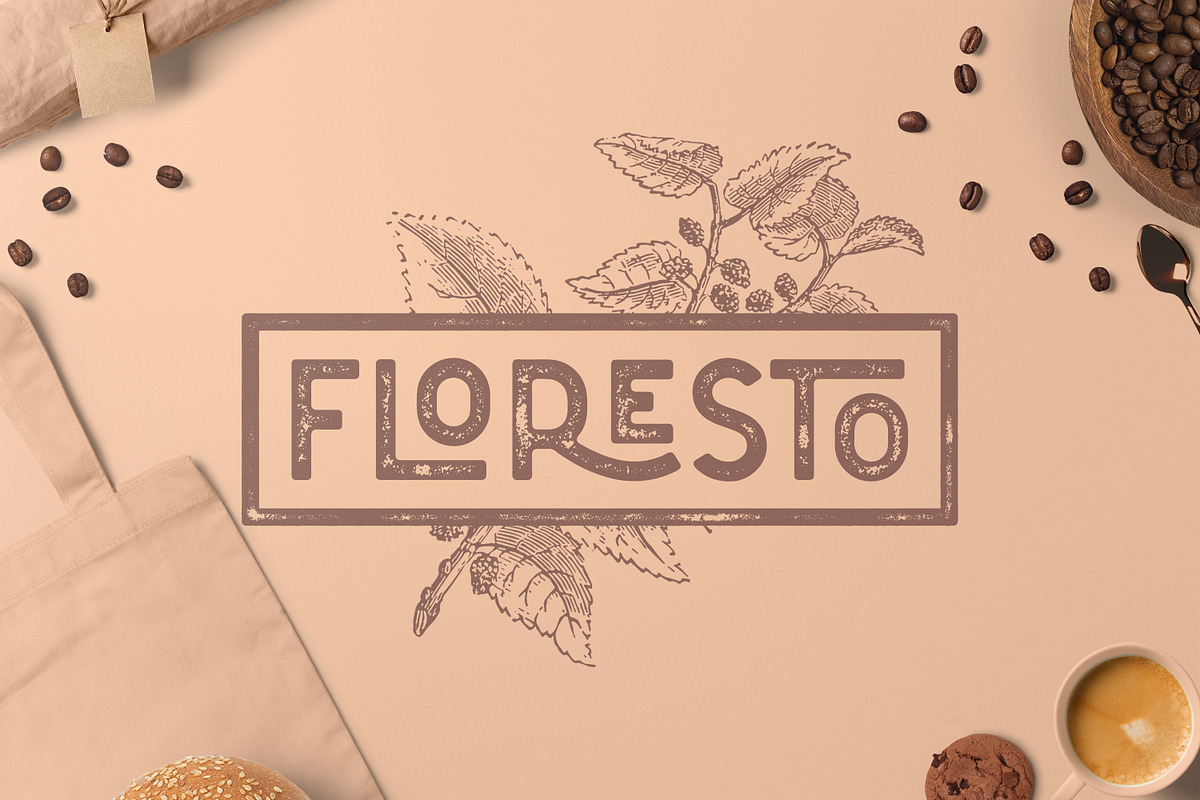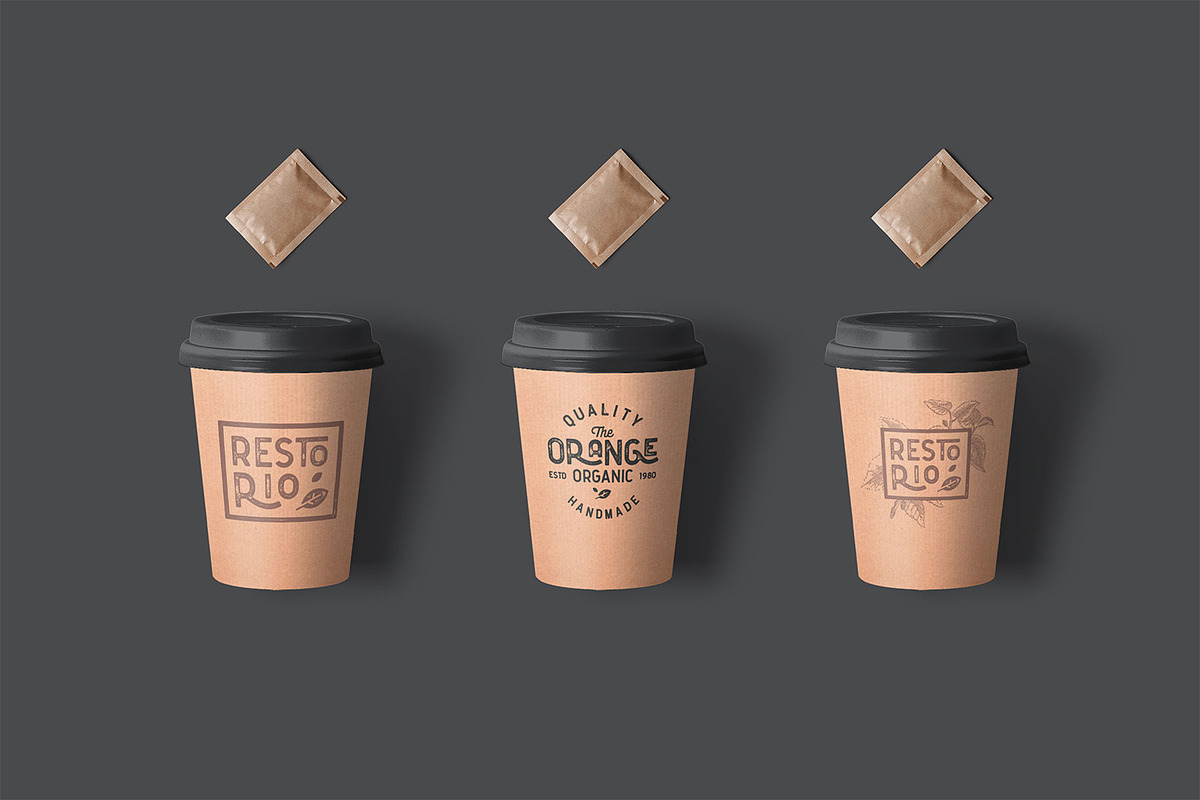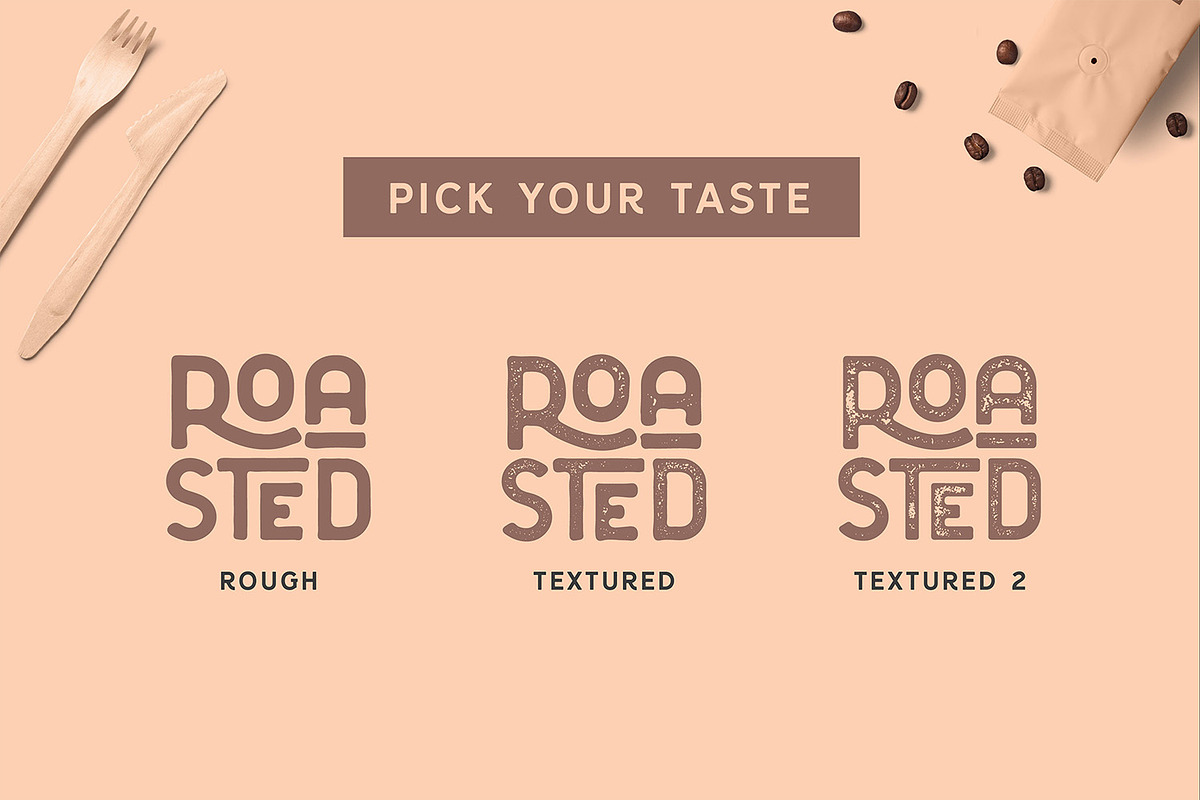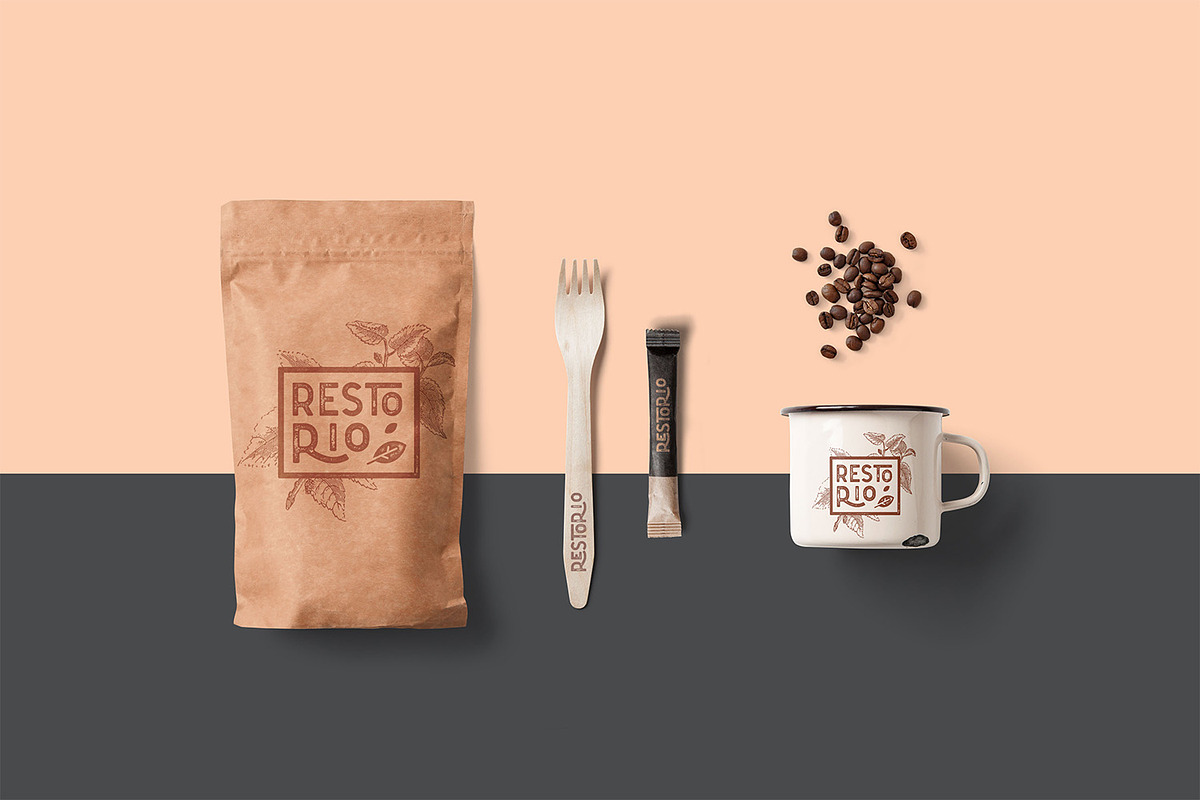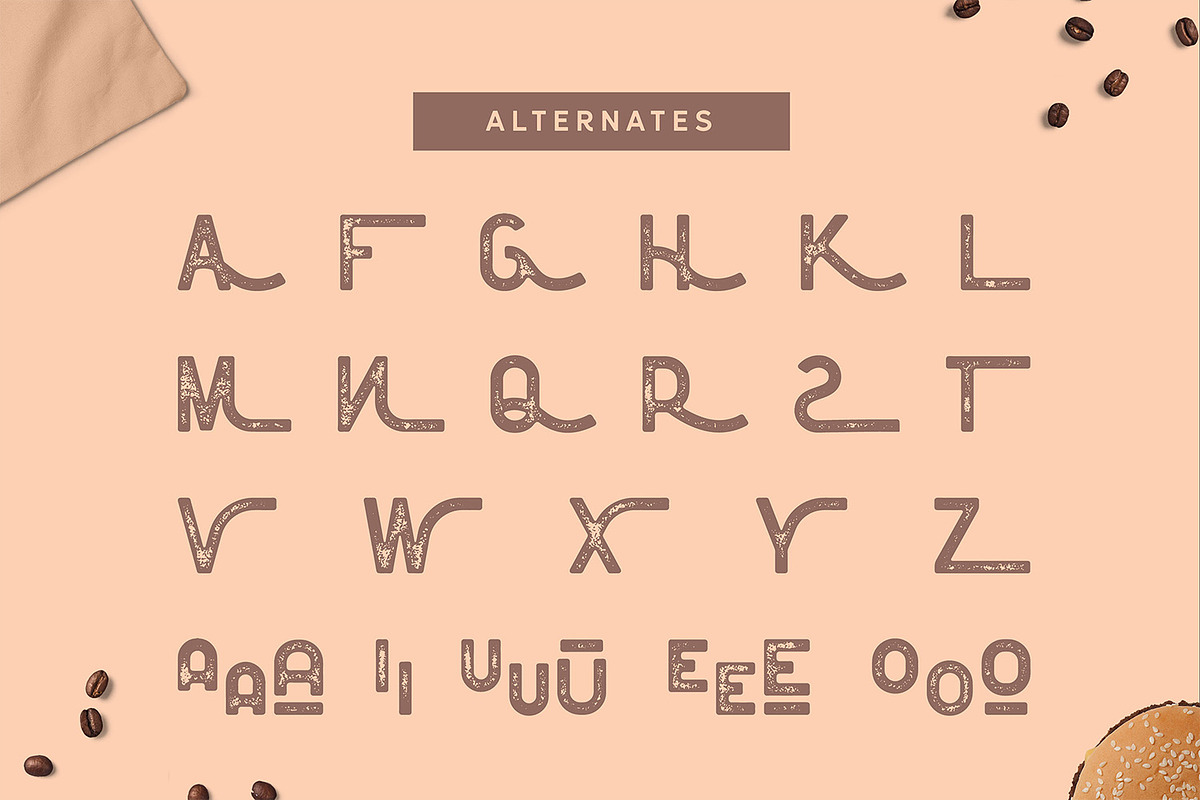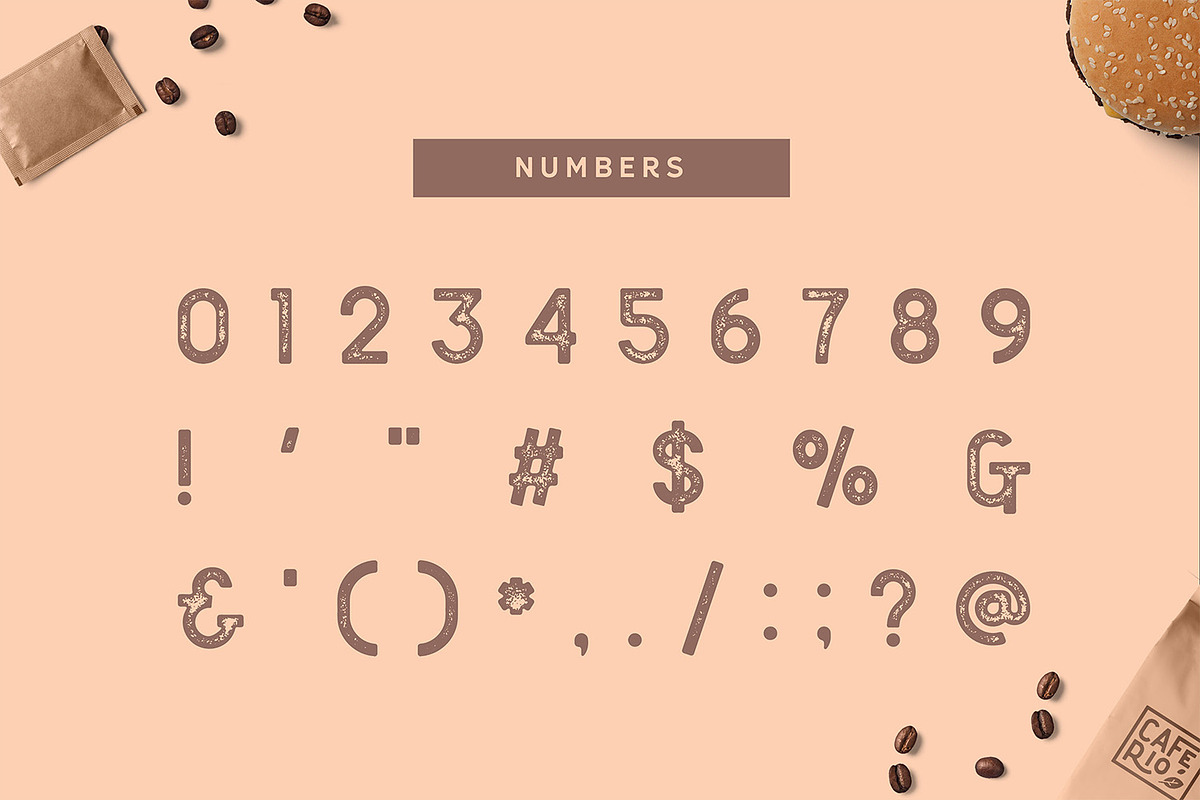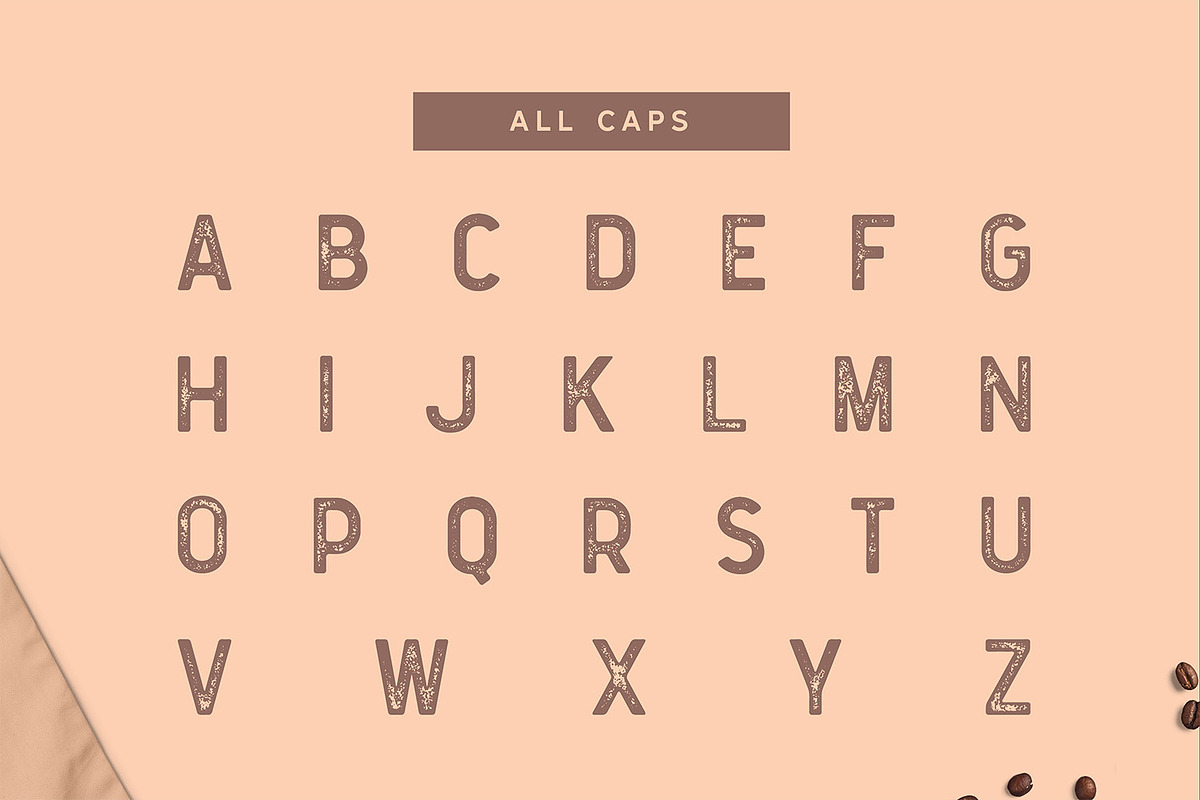
Floresto Textured Typeface
The Floresto Textured is a Modern vintage sans serif font, with Roughed edges and touch of many beautiful alternate characters make this font look Elegant & stylist. It contains an uppercase alphabet with numbers and symbols. Designed with Stylistic Alternates and Contextual Alternate in some characters that allows you to mix and match pairs of letters to fit your design. Perfect for many different projects: logo, fashion, quotes, blog header, poster, wedding, branding, apparel, letter, invitation, stationery, etc
Thre Styles : Rough & Textured, Textured2
Character set A-Z with special uppercase letters
Floresto Textured Typeface by Kaligra.co fits naturally into Branding, posters, packaging, typography.